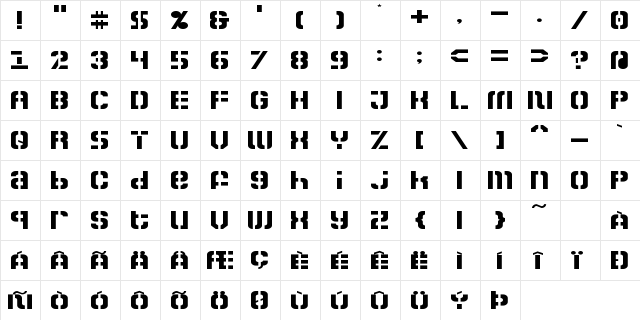
Zoia Stencil Regular
| Designer | zephram |
Design Context for Zoia Stencil Typeface
Zoia Stencil has the rough pragmatism of spray-painted stencil signage, adding a raw, street-level authenticity to designs.
A strong choice for packaging that needs edge, warehouse aesthetics, and rough-and-ready visual identities.
Pro Tip: Use Zoia Stencil at large sizes on packaging, posters, or apparel where the stencil cutaways read clearly. Avoid small sizes where those gaps become visual noise.